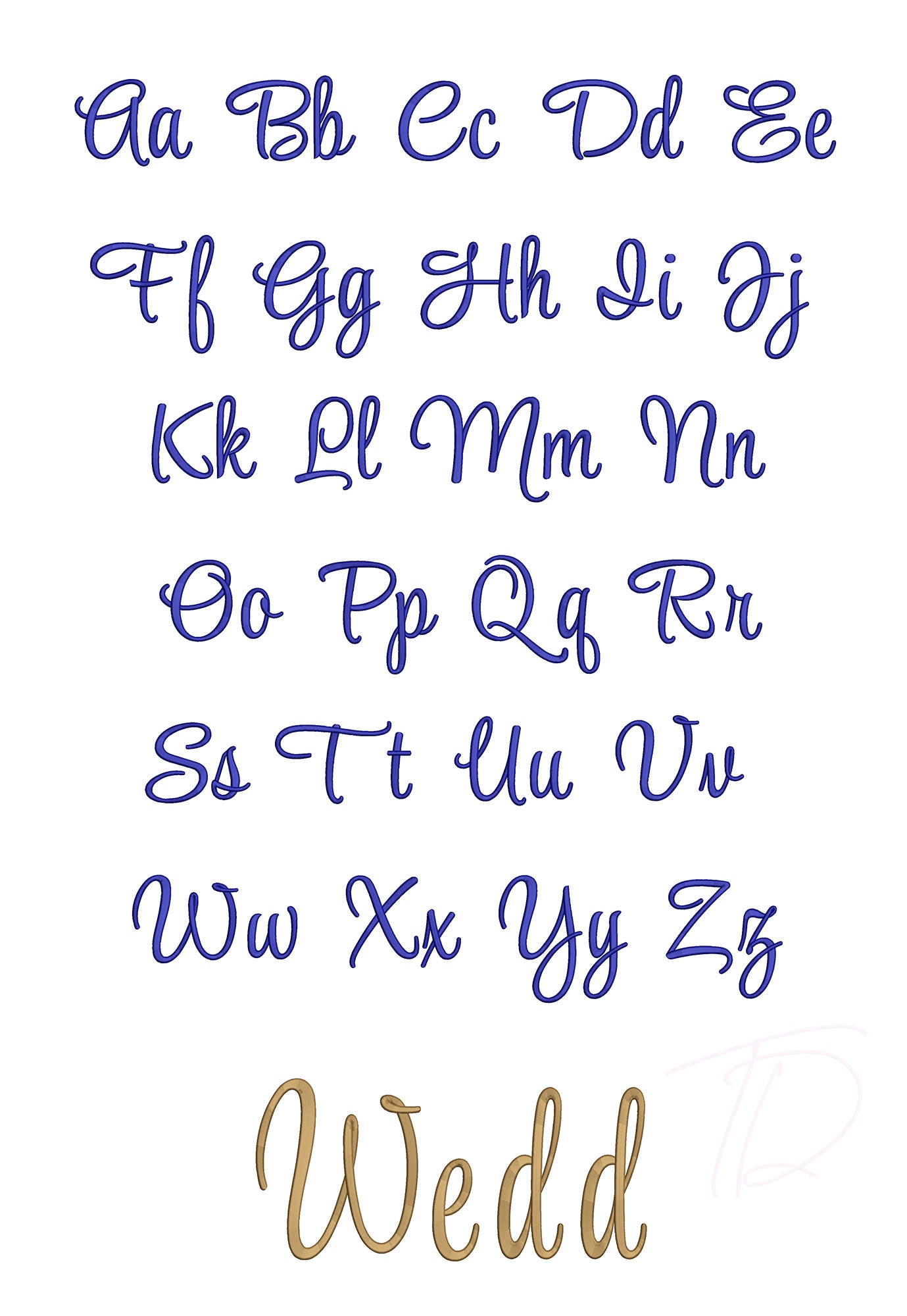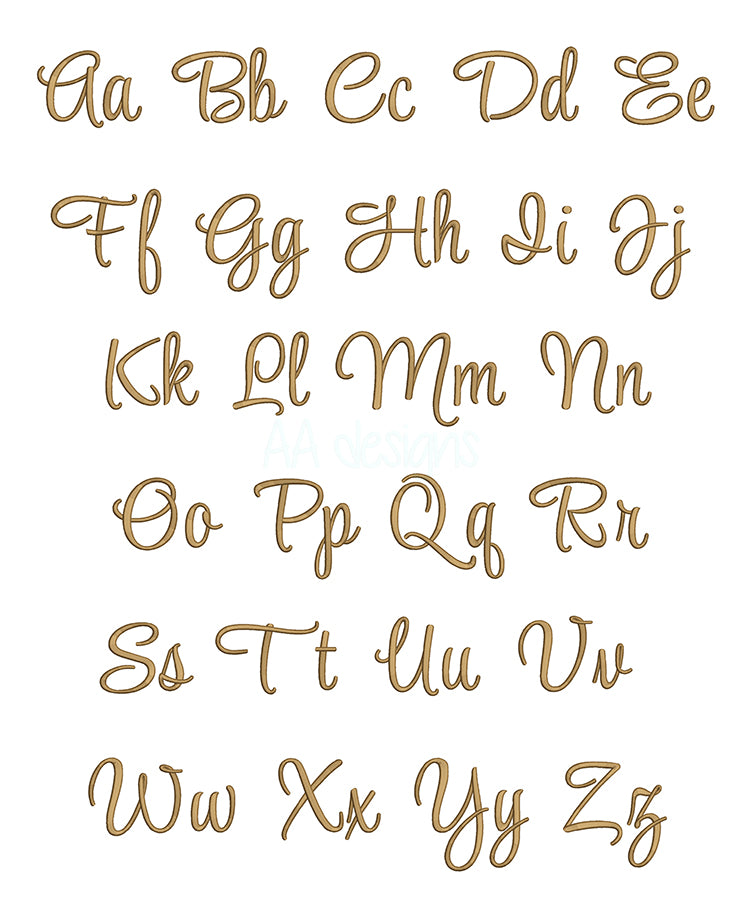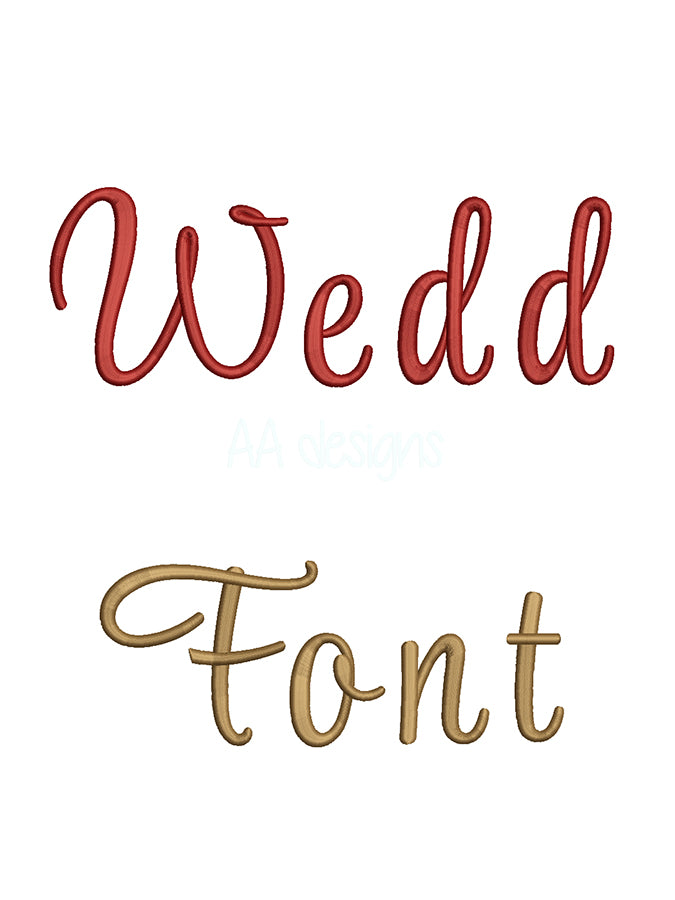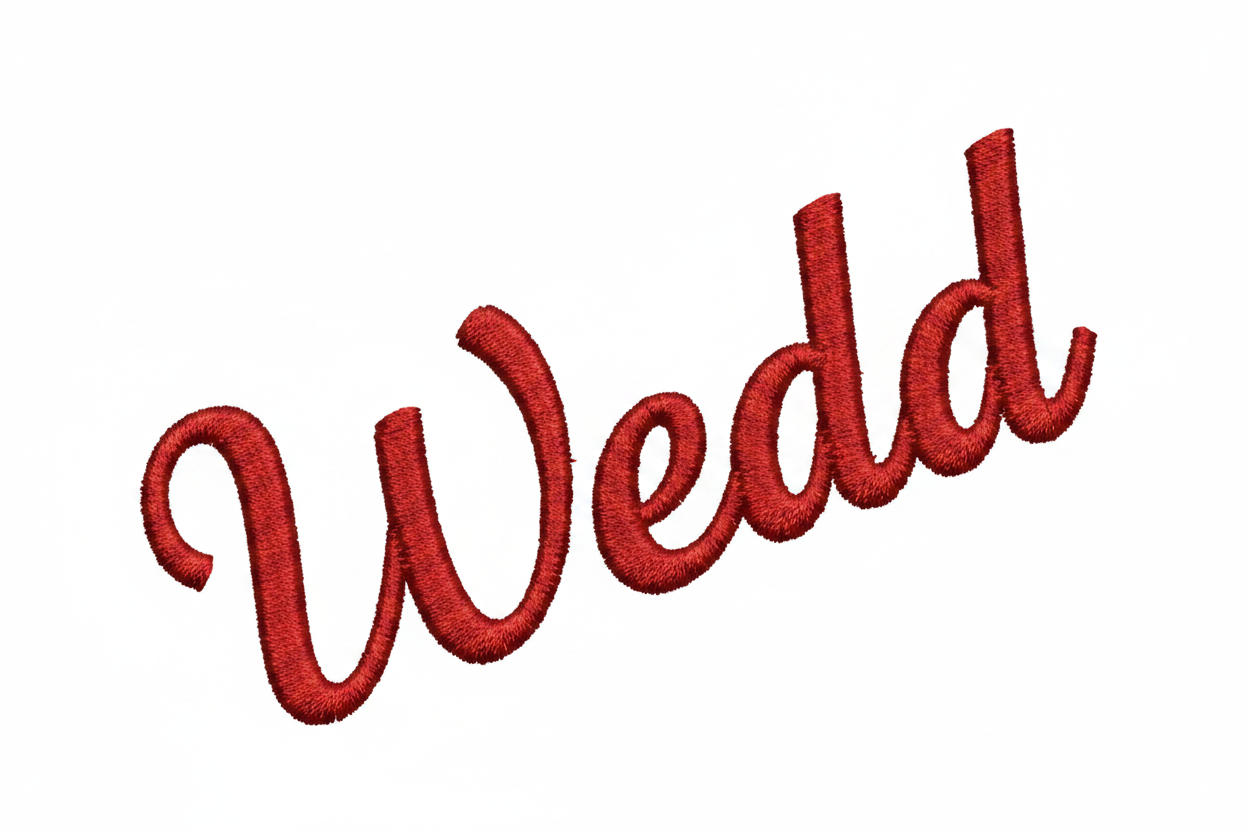
The Wedding 3D Puff embroidery font is an elegant, romantic script alphabet crafted for the raised 3D foam embroidery technique. With flowing curves and graceful letterforms, this font brings a luxurious, dimensional quality to bridal and wedding projects that flat embroidery simply cannot achieve.